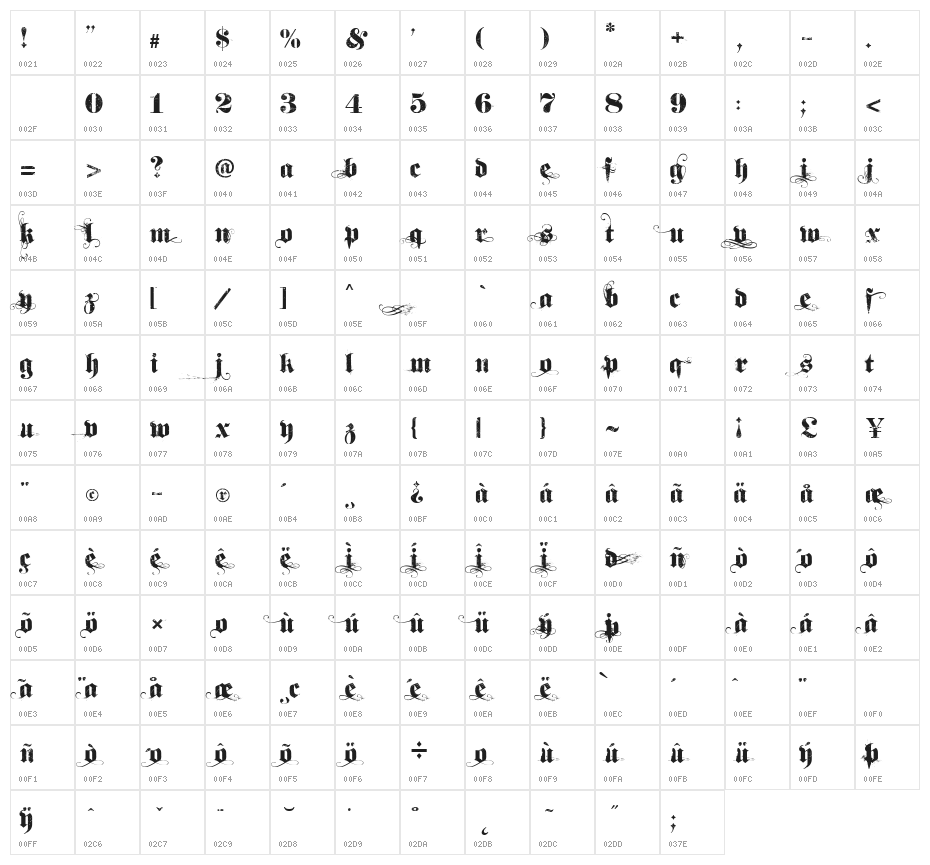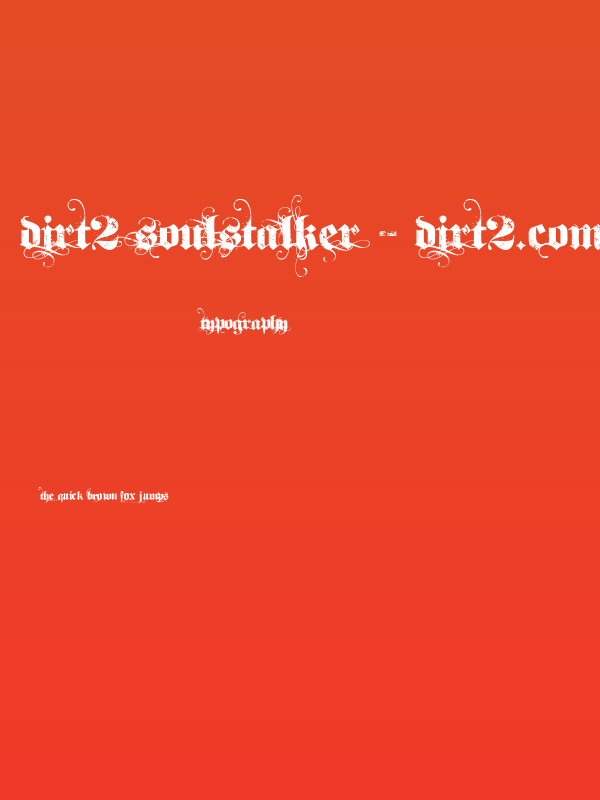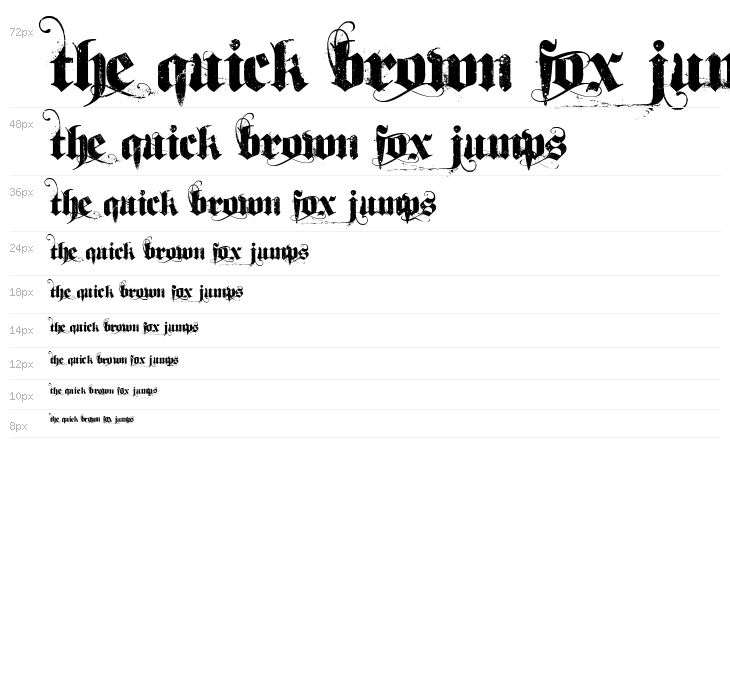
Dirt2 SoulStalker - Dirt2.com Font
Dirt2 SoulStalker - Dirt2.com Description
This font exudes a gothic and grunge aesthetic, characterized by its intricate and ornate design. The letters are embellished with flourishes and distressed textures, giving it a vintage and edgy feel. The uppercase and lowercase letters maintain a consistent style, with sharp edges and elaborate details. The numbers and special characters are equally decorative, enhancing the overall dramatic appearance. This font is perfect for projects that require a bold and artistic statement, such as album covers, posters, or themed events. Its unique style captures attention and adds a touch of rebellious elegance.
| Overall Style | Vintage, Decorative |
| Proposed Projects | Ideal for album covers, posters, themed events, and artistic projects. |